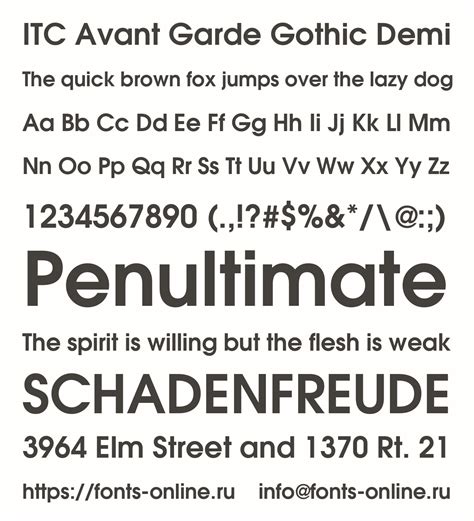
Avant Garde Font Itc. Digital version was produced by elsner+flake. The family consists of 4 fonts in 2 weights (bold and light) in 1 width,.
Web proudly present new font called itc avant garde gothic font family is a geometric sans serif typeface based on the logo font used in the avant garde magazine. Web download itc avant garde gothic for free, view sample text, rating and more on fontsgeek.com. Download itc_ avant_ garde for free, view sample text, rating and more on fontsgeek.com. Itc avant garde gothic font family was designed by tom carnase, erich gschwind, christian mengelt, edward benguiat, andré gürtler, herb lubalin and published by itc. The family consists of 4 fonts in 2 weights (bold and light) in 1 width,. It is a monospaced version designed by ned bunnel in 1983. Itc avant garde font is used in “ adidas ”. Web itc avant garde swa. Web itc avant garde mono. Digital version was produced by elsner+flake.
Web complete family of 20 fonts: Web itc avant garde mono. It is a monospaced version designed by ned bunnel in 1983. Web complete family of 20 fonts: Web download itc avant garde gothic for free, view sample text, rating and more on fontsgeek.com. Web itc avant garde swa. The family consists of 4 fonts in 2 weights (bold and light) in 1 width,. Web proudly present new font called itc avant garde gothic font family is a geometric sans serif typeface based on the logo font used in the avant garde magazine. Download itc_ avant_ garde for free, view sample text, rating and more on fontsgeek.com. Itc avant garde font is used in “ adidas ”. 4 styles uncategorized 0 downloads.